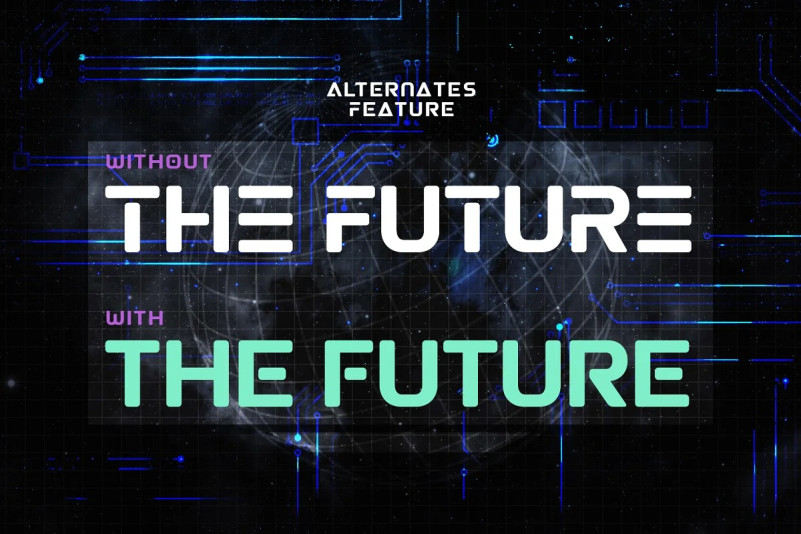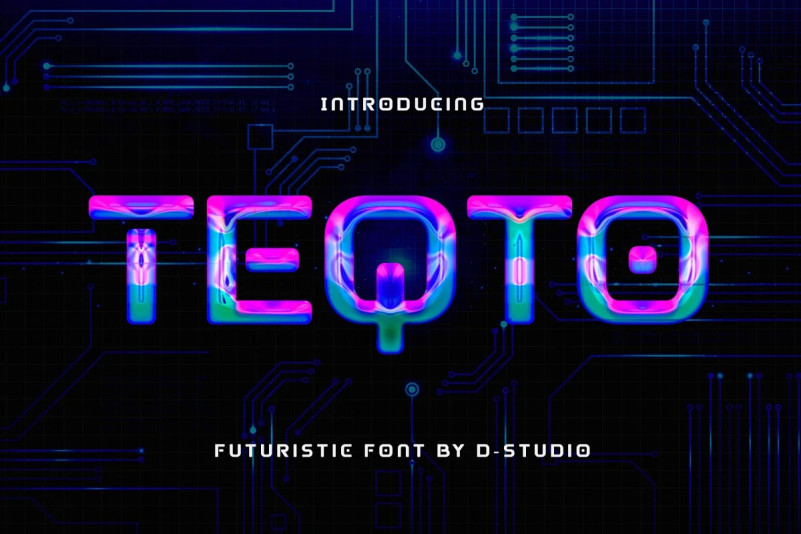
Teqto Font
Teqto Display Font is rounded futuristic font from Drizy studio. Offering all the basic styles you will need for a successful project.
Teqto Features:
Uppercase & Lowercase Numeral & Punctuation Multilingual Ligatures